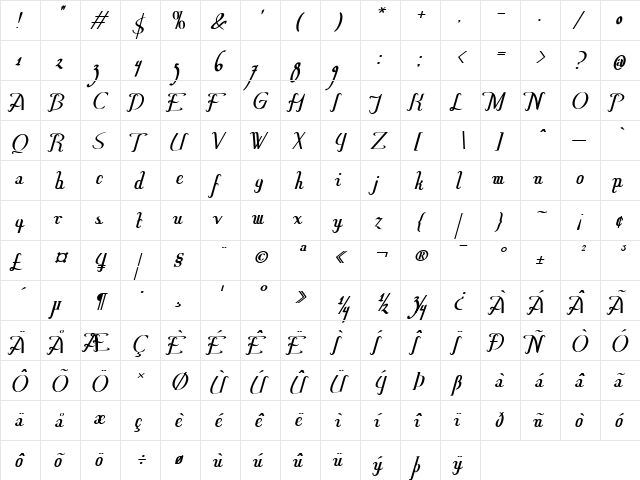
Hitalica Bold Font Preview
| Foundry | M害 Greb䣫 |
| Designer | M害 Greb䣫 |
Design Context for Hitalica Typeface
Hitalica takes a measured approach to typography — its balanced proportions and neutral character make it a reliable workhorse for both digital and print work. Its italic angle brings a sense of urgency and motion to the letterforms. Its bold stroke weight gives it real presence on the page.
Pro Tip: Try Hitalica for annotation and caption copy alongside an upright companion — the contrast in angle creates a dynamic but ordered typographic system.